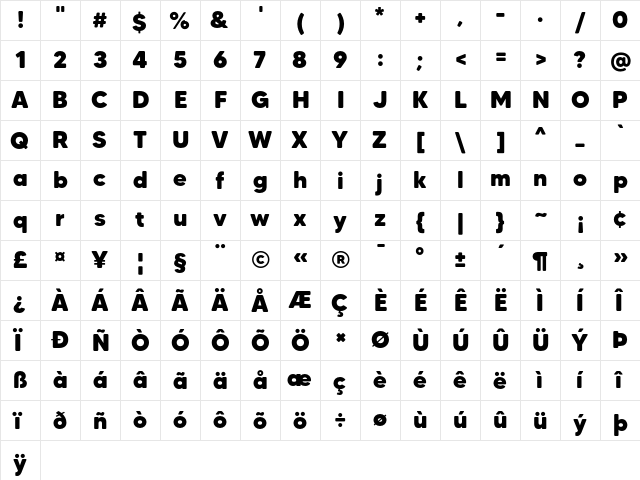
MADE Tommy Soft ExtraBold
| Foundry | MadeType |
| Designer | MadeType |
Design Context for MADE Tommy Soft Typeface
MADE Tommy Soft offers clean, dependable letterforms without strong stylistic allegiance, making it a practical choice for designers who need flexibility. The heavy weight commands attention and anchors typographic hierarchies.
Pro Tip: Use MADE Tommy Soft in both headline and body roles to test its range before committing to a single application.